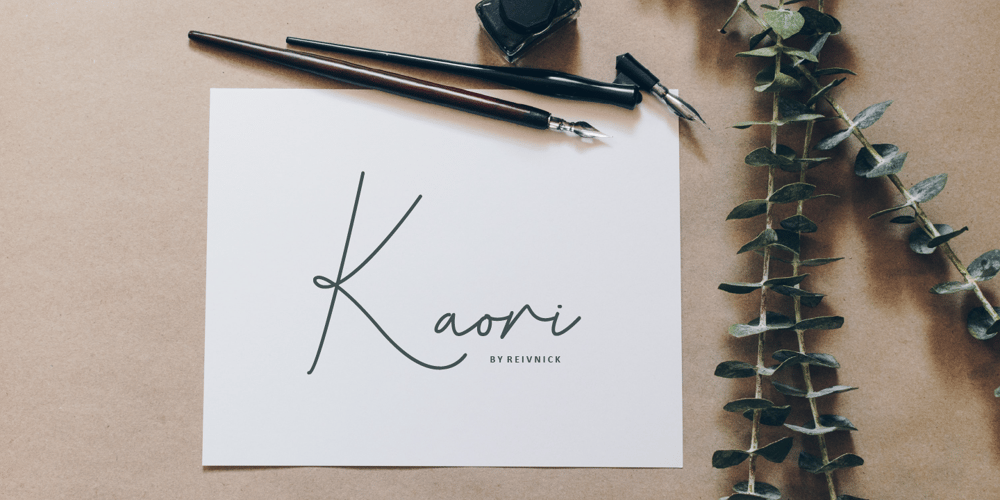
Kaori Font Family was designed by Benediktus Hosni Iryandito and published by ReivNick. Kaori contains 1 styles and family package options. Kaori is perfect for title, logo, product packaging, branding, magazine, social media, wedding, or just used for quotes.